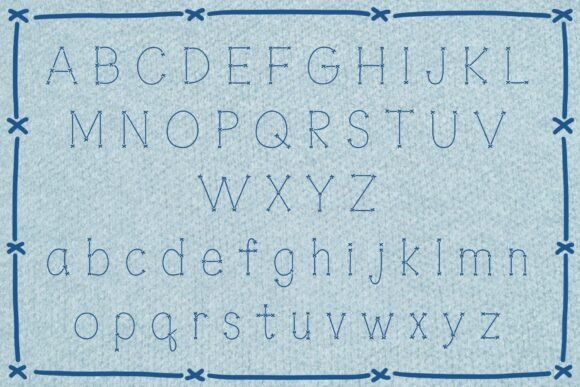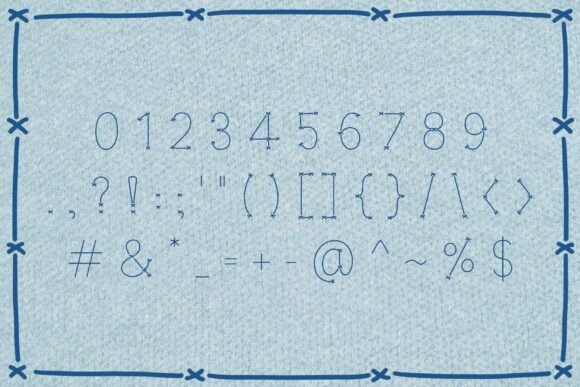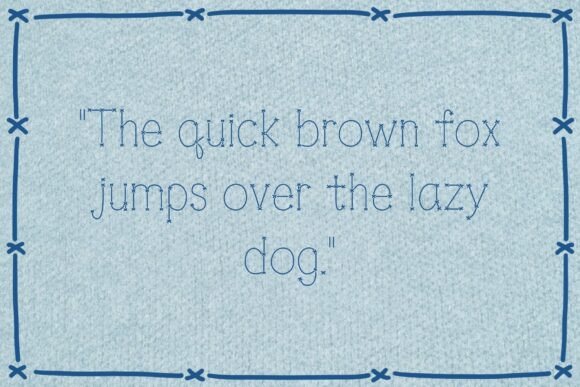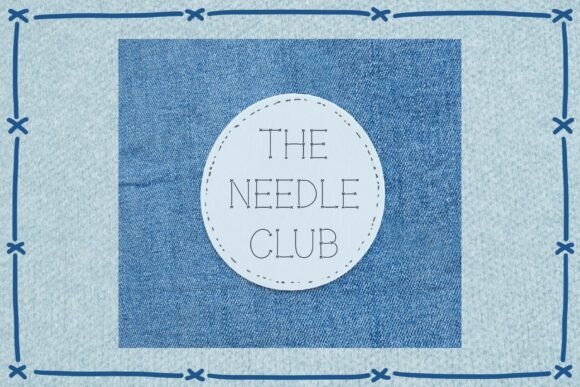
Introduction to Needle Nest Font
Have you ever sat with a needle and thread, stitching a delicate pattern onto a piece of fabric, and felt a sense of calm wash over you? For many of us, the act of creating something with our own hands can be a meditative experience, and the results can be truly beautiful. This is precisely the inspiration behind the Needle Nest Font, a hand-crafted typeface that captures the charm of traditional embroidery and threadwork.
As a valuable resource for designers, the Needle Nest Font offers a unique combination of aesthetic appeal and versatility. With its intricate cross-stitch marks and delicate design, it’s the perfect choice for sewing projects, craft branding, handmade product labels, and DIY-inspired designs. Whether you’re working on a creative project or simply need a high-quality font for your next design, the Needle Nest Font is a free download that’s sure to impress.
Key Features of Needle Nest Font
- Unique, hand-drawn design with a natural, organic feel, making it perfect for creative projects and design resources.
- Designed with a subtle, textured feel, adding depth and visual interest to your creative projects and design resources.
- Perfect for use in a variety of design contexts, from invitations and greeting cards to digital products and branding materials.
- Includes a comprehensive character set, including uppercase and lowercase letters, numbers, and punctuation marks, to support your creative project needs.
Honest Review: Needle Nest Font
I recently stumbled upon the Needle Nest Font while searching for the perfect design resource for a creative project. I was blown away by the high-quality aesthetic and unique design elements.
What works well: ✨ The Needle Nest Font offers a free download option, making it easily accessible to designers of all levels. The font also features a transparent background, which is perfect for adding an extra layer of customization to your design. The delicate, intricate details in the font make it perfect for use in wedding invitations, baby shower decorations, or any other project that requires a touch of elegance.
- Unique design elements
- High-quality aesthetic
However, there are a few limitations: ⚠️ The font may not be suitable for projects that require bold or dramatic typography, as it is quite delicate. Additionally, some users may find the font’s intricate details overwhelming or difficult to read in certain contexts.
Overall, I’m thoroughly impressed with the Needle Nest Font. Its high-quality design and unique aesthetic make it a valuable addition to any designer’s toolkit. While it may have some limitations, I believe it’s well worth exploring for your next creative project.
The Needle Nest Font is ideal for use in creative projects such as logos, posters, business cards, and social media graphics. Its unique design and transparent background make it a versatile choice for a variety of design applications.